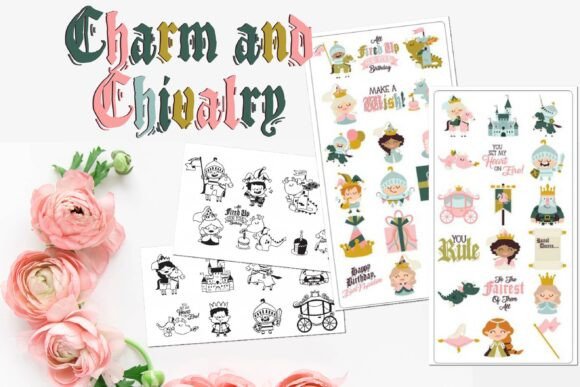
Unleash Your Creativity with Charm and Chivalry Font
If you’re looking for a font that can add a touch of royalty and whimsy to your designs, look no further than the Charm and Chivalry Font bundle. This delightful collection features pastel-colored royalty, dragons, castles, and more, making it perfect for crafty designers, DIY enthusiasts, and small business owners.
What’s Included in the Bundle?
The Charm and Chivalry Font bundle is a comprehensive collection of fonts that includes:
- 1 full-color font with an alt case of additional colors of each letter that can be accessed through your system or Silhouette’s glyph map
- 2 full-color dingbats
- 2 regular dingbats
Creative Ways to Use the Charm and Chivalry Font Bundle
The Charm and Chivalry Font bundle is perfect for a variety of design projects, including:
- Logos and branding: Add a touch of whimsy and personality to your logo and branding materials.
- Social media graphics: Create eye-catching social media graphics, like Facebook posts and Twitter headers.
- Invitations and party decorations: Use the font to create custom invitations, banners, and party decorations.
- Illustrations and graphics: Create complex illustrations and graphics using the font’s vector-based capabilities.
Tips and Tricks for Getting the Most Out of the Charm and Chivalry Font Bundle
Here are some tips and tricks for getting the most out of the Charm and Chivalry Font bundle:
- Experiment with different colors: Don’t be afraid to try out different color combinations to find the perfect look for your design.
- Use the glyph map: Use the glyph map to access additional colors and characters.
- Combine with other fonts: Combine the Charm and Chivalry Font with other fonts to create a unique look.
The Charm and Chivalry Font bundle is a versatile and fun font that can add a touch of personality to your designs. With its pastel-colored royalty, dragons, castles, and more, it’s perfect for crafty designers, DIY enthusiasts, and small business owners. Whether you’re creating logos, social media graphics, or illustrations, this font bundle is sure to delight.